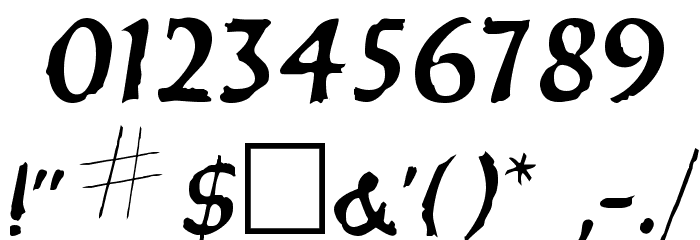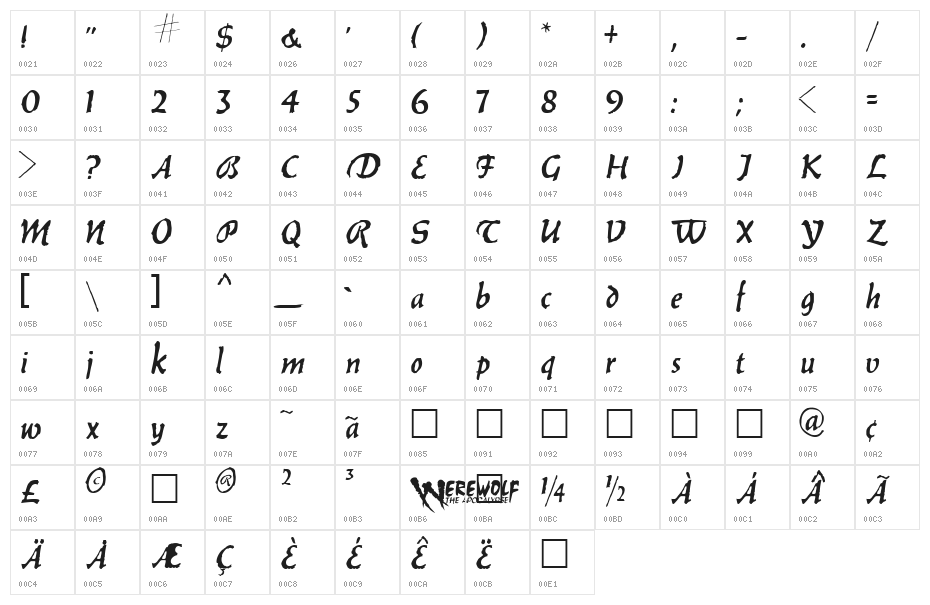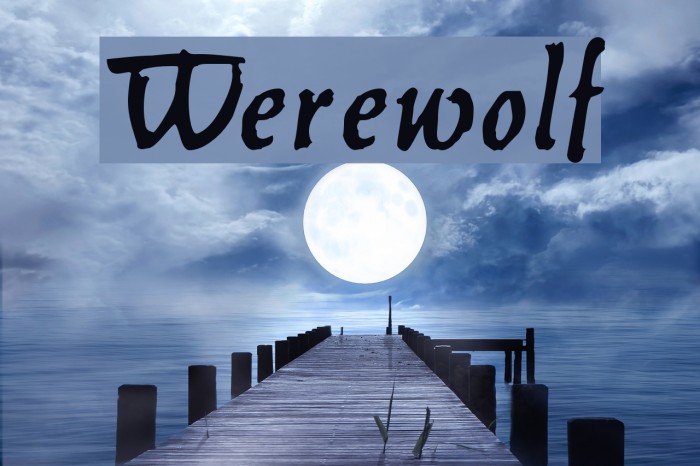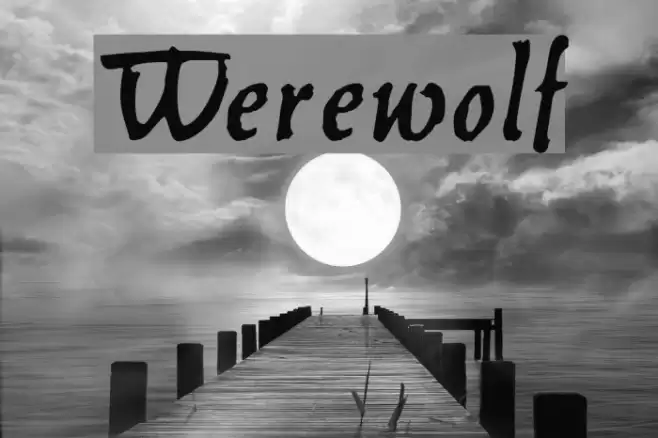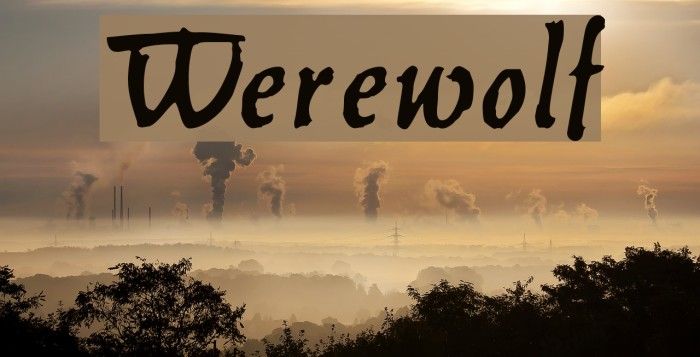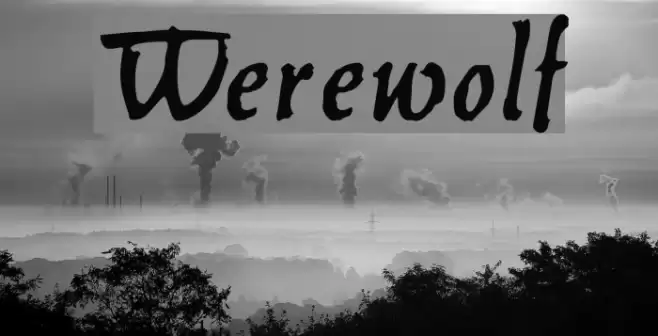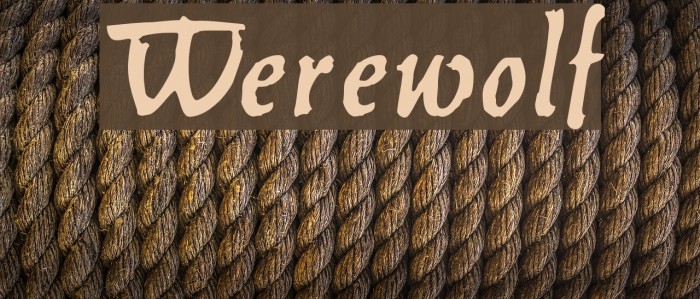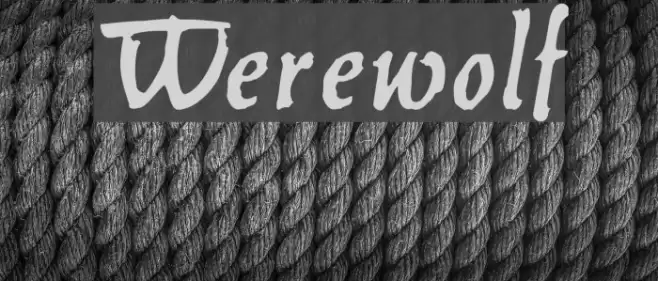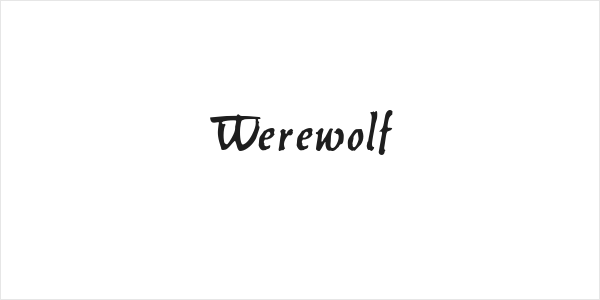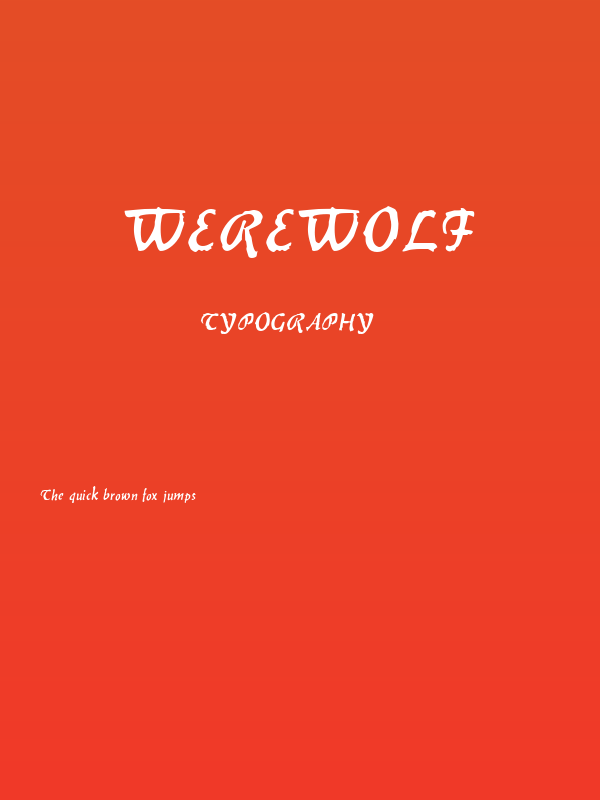
Werewolf Font
Werewolf Description
This font features a bold and dynamic style with a hand-drawn appearance, reminiscent of brush strokes. The characters have a slightly irregular form, adding to the organic and expressive feel. The uppercase letters are slightly larger and more pronounced, while the lowercase letters maintain a consistent flow. Numbers and special characters follow the same bold and expressive design, ensuring a cohesive look across all elements. The overall impression is one of energy and movement, making it suitable for creative and artistic projects.
| Proposed Projects | Ideal for posters, album covers, branding, and any project requiring a bold, artistic touch. |